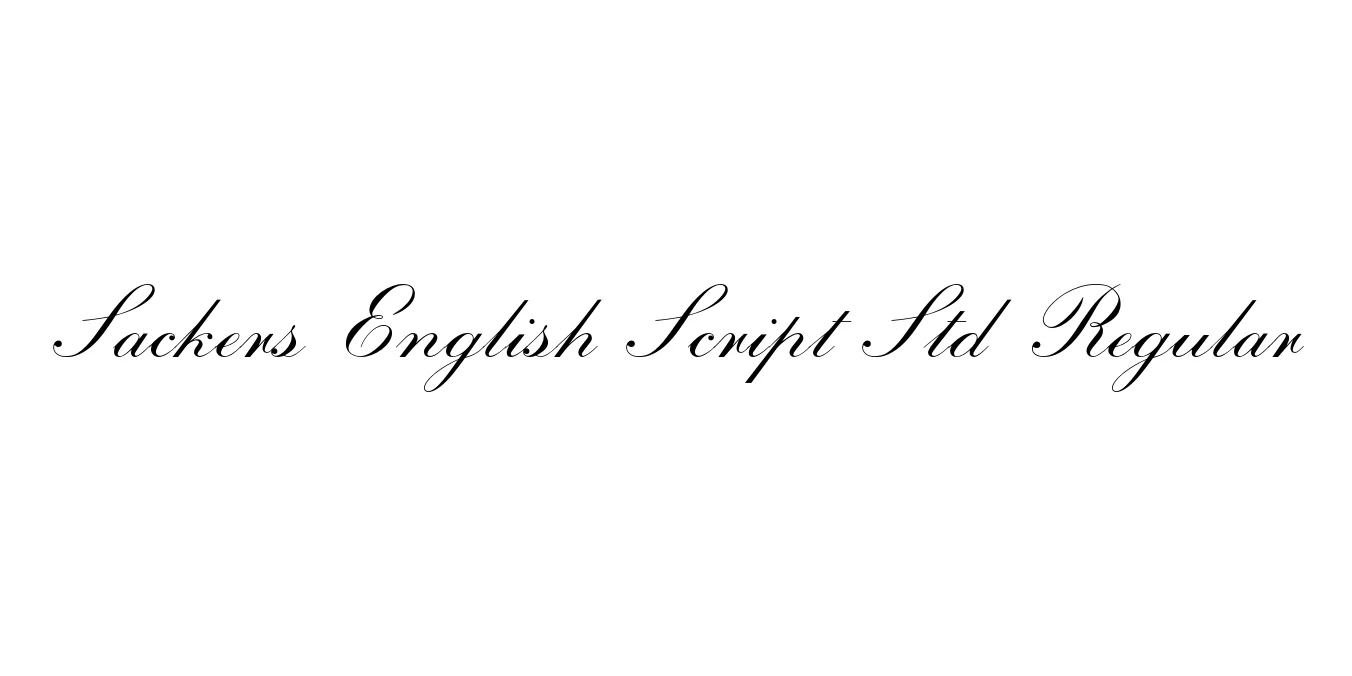
Sackers English Script Std Regular
Designed by Monotype Design Studio
Sackers English Script Std Regular is a refined and formal script typeface that forms a core part of the Sackers Series, a collection of fonts specifically designed for the social stationery and invitation industry. This typeface is a digital revival of the elegant, hand-engraved lettering styles popular in the late 19th and early 20th centuries. Its design features a high degree of stroke contrast and delicate, sweeping flourishes that emulate the precision of a master copperplate engraver.
The font is celebrated for its timeless elegance and strictly formal structure, making it a staple for high-end event branding. Unlike more casual modern calligraphic fonts, Sackers English Script maintains a traditional stance with its rigid slants and carefully balanced loops. It has become the industry standard for designers seeking to convey a sense of heritage, luxury, and social prestige in printed media.
Sackers English Script Std Regular Best Uses
Perfect for formal invitations, place cards, and envelopes that require a classic aesthetic.
Excellent for certificates and diplomas to provide a sense of official prestige.
Ideal for logotypes for high-end fashion houses, jewelry brands, and boutique services.
Used as an accent script in magazines for titles or short quotes to add sophistication.